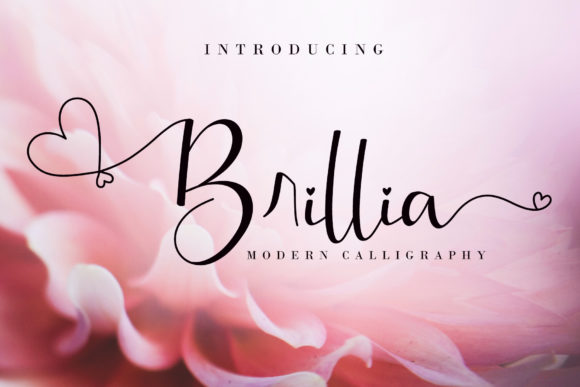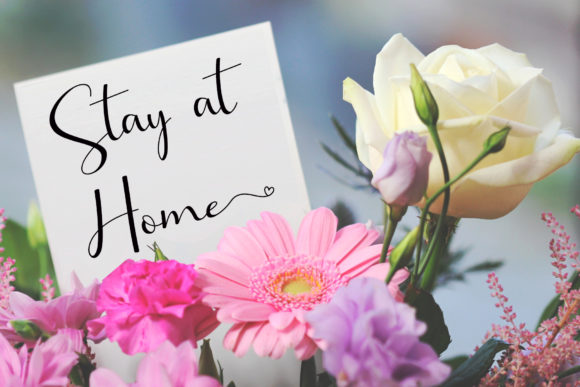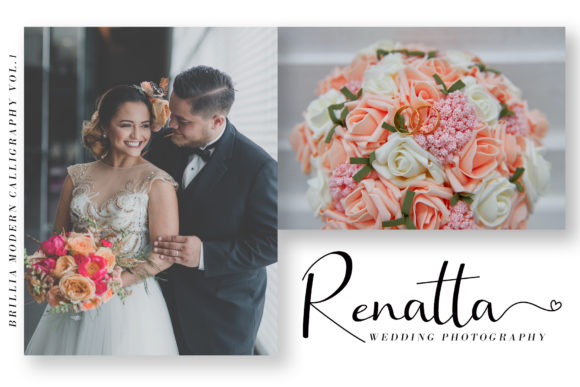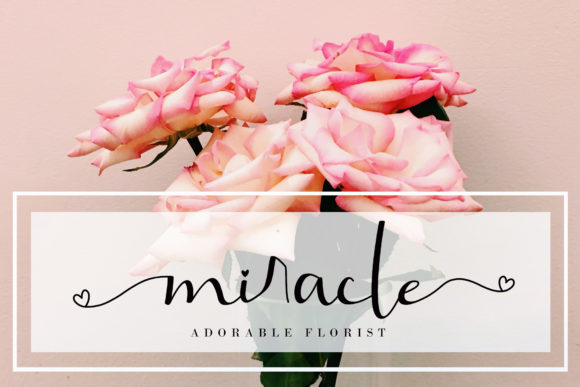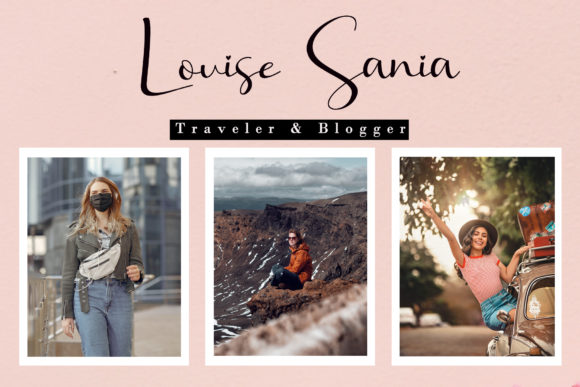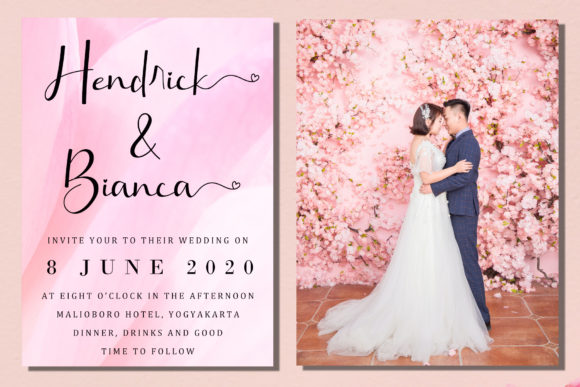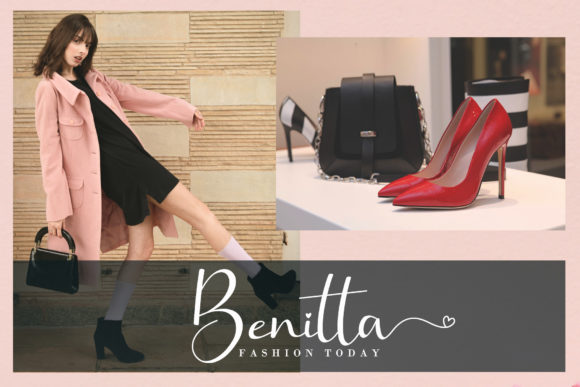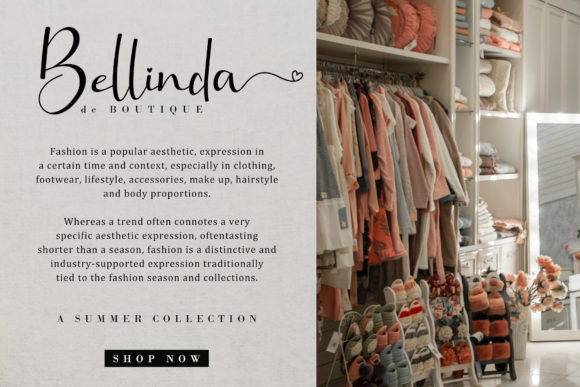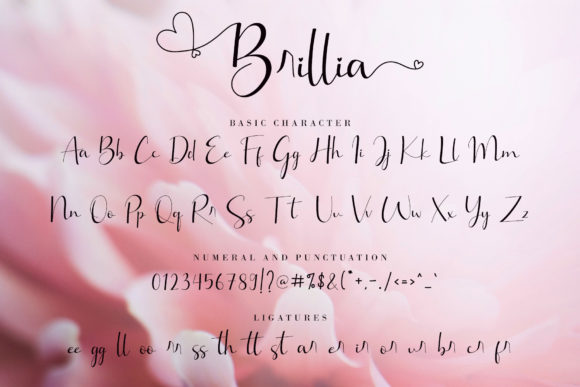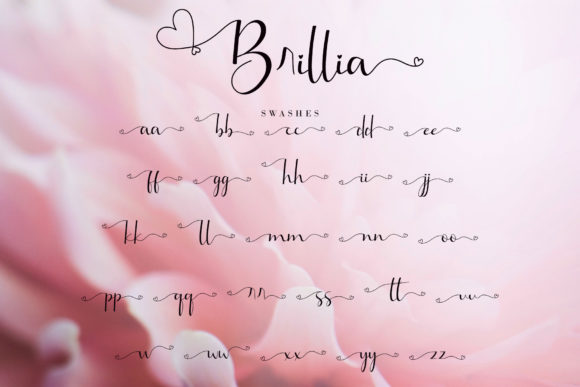
Brillia Font
About Brillia Font
Brillia is a sweet modern calligraphy, soft hand-lettered handwritten font. Fall in love with its authentic feel and use it to create gorgeous wedding invitations, beautiful stationary art, eye-catching social media posts, and cute greeting cards.